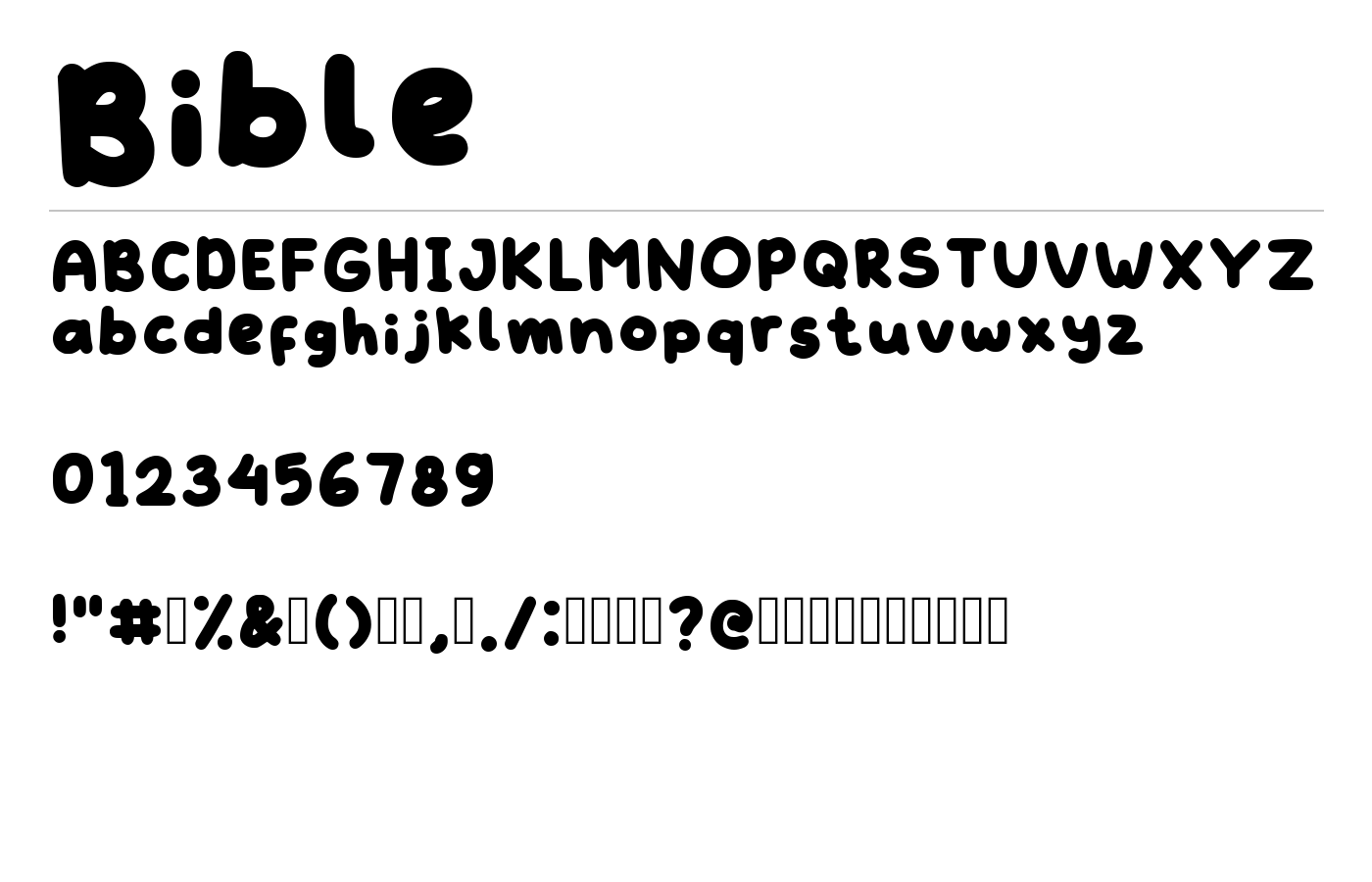
Bible Font is a playful, rounded sans serif typeface with a bold weight and a friendly, casual feel. Its soft, thick strokes and simple, slightly irregular letterforms make it perfect for informal designs, children's books, and fun branding that seeks to appear approachable and warm. This font works well in headlines, logos, and packaging where a lively and welcoming tone is desired.
Bible Font